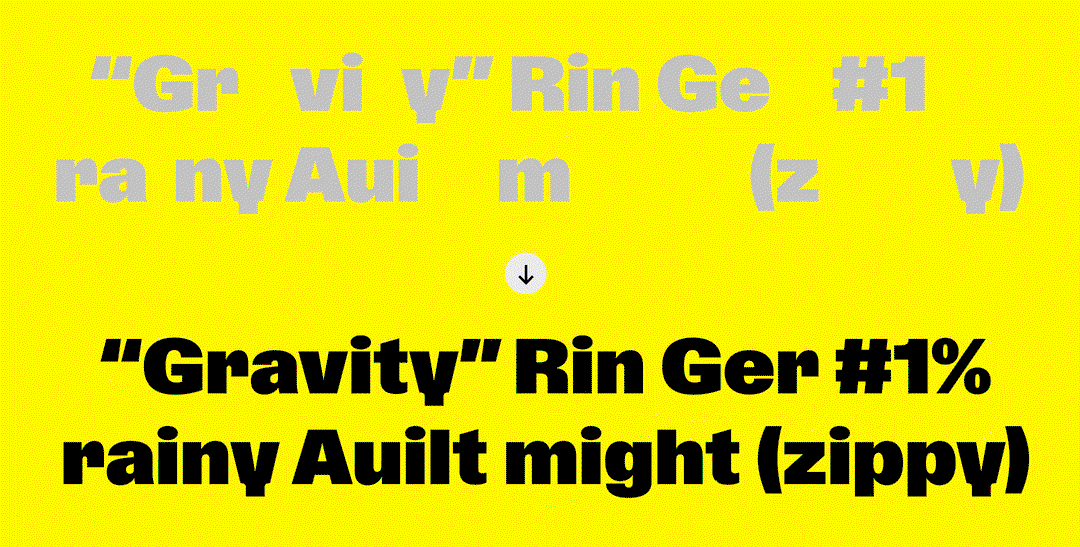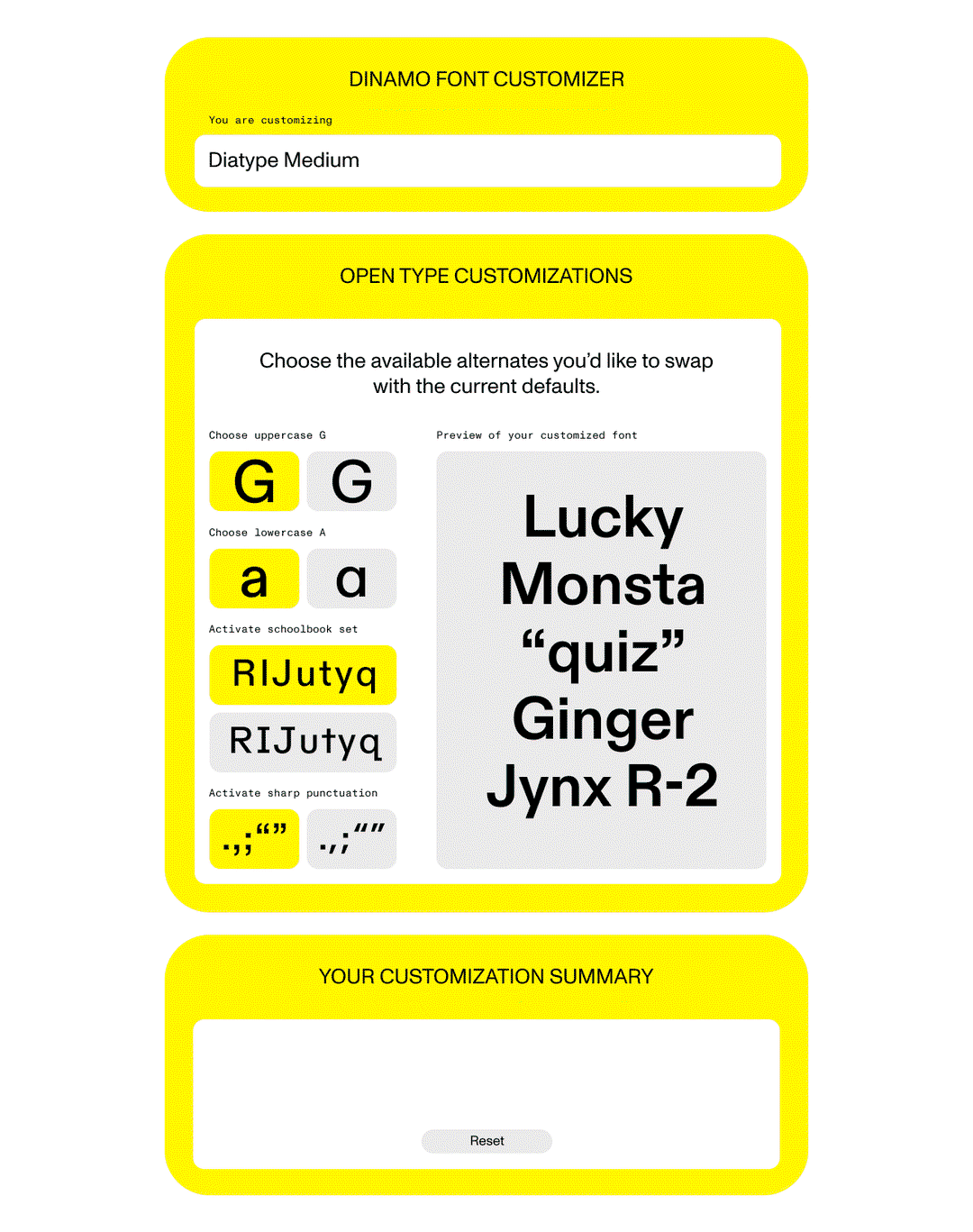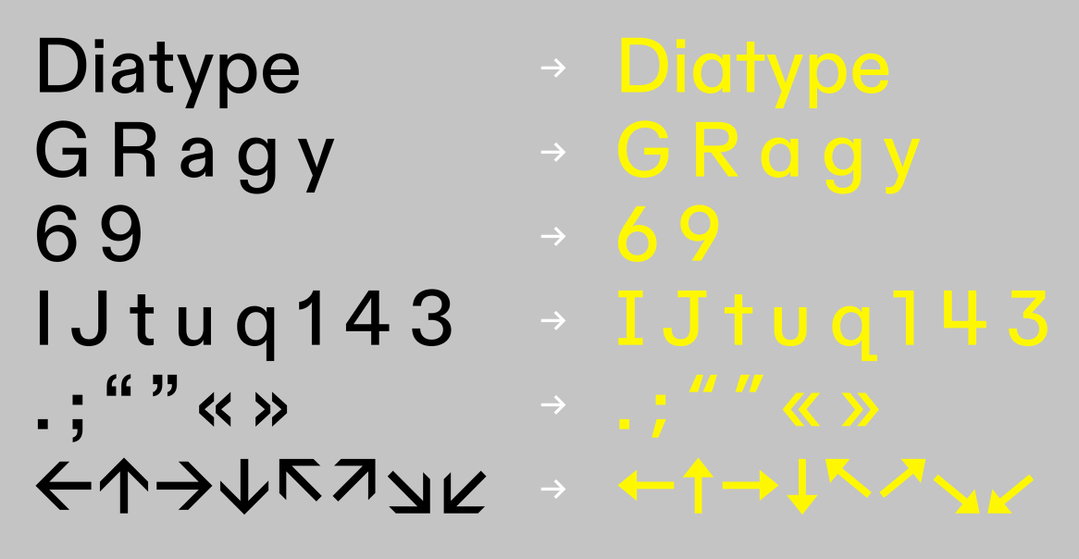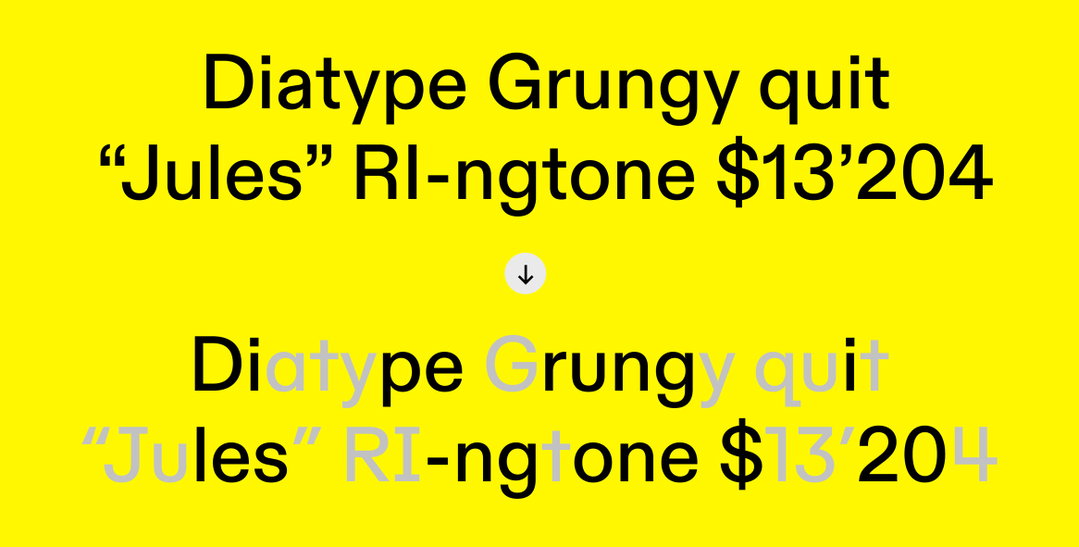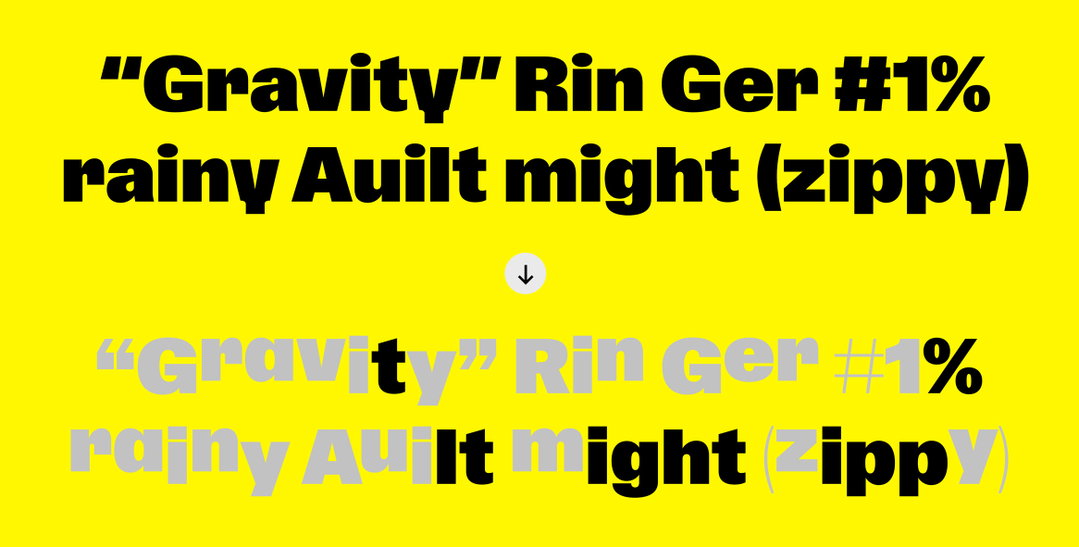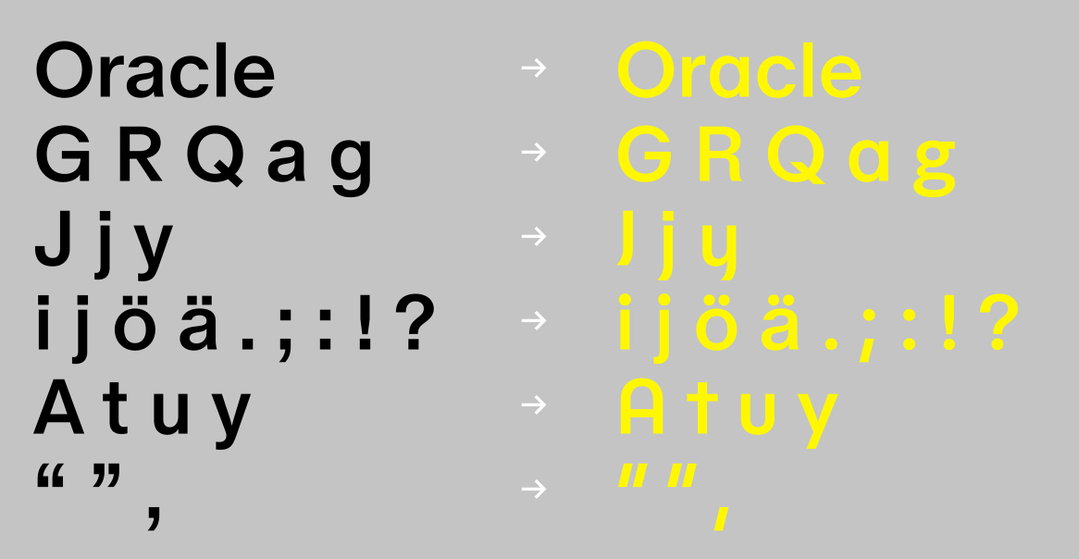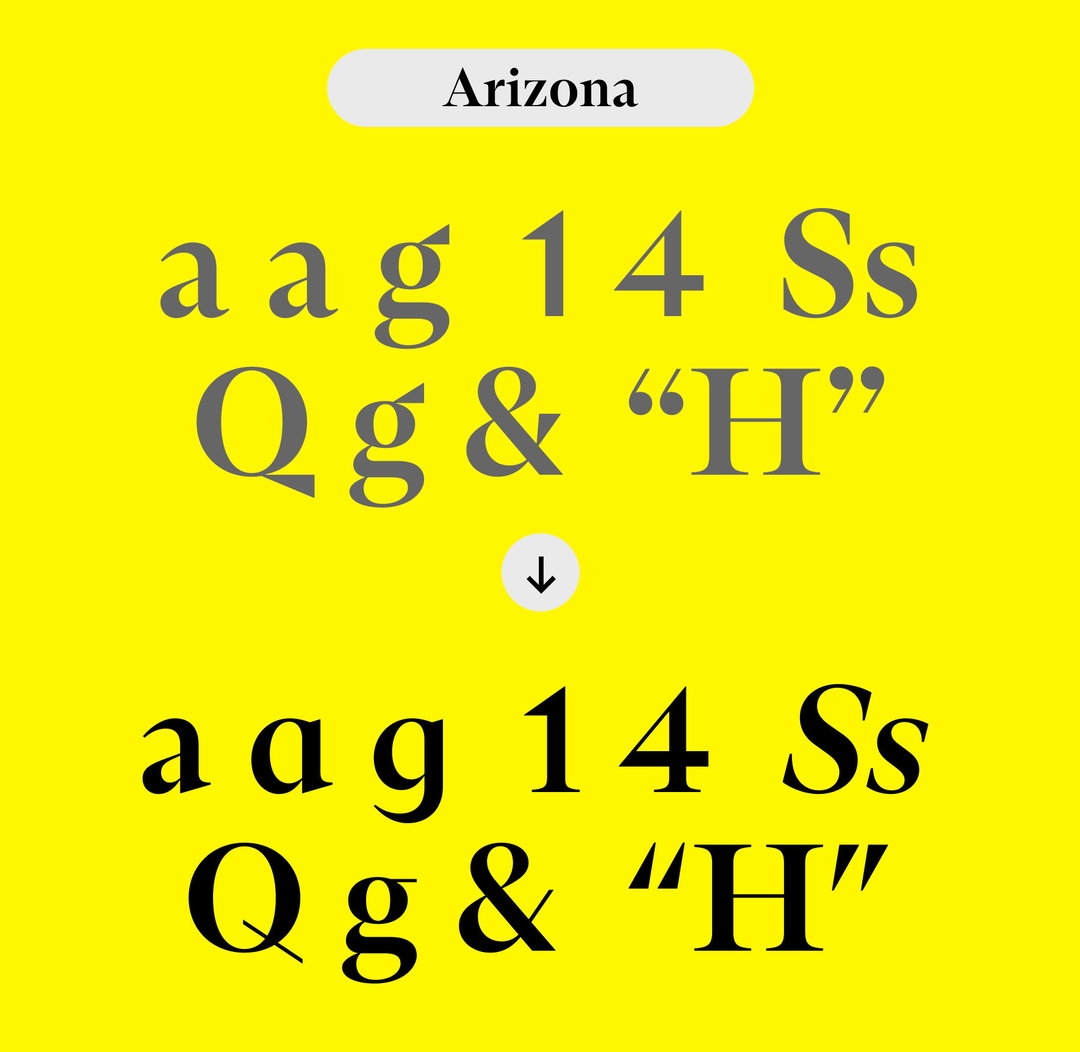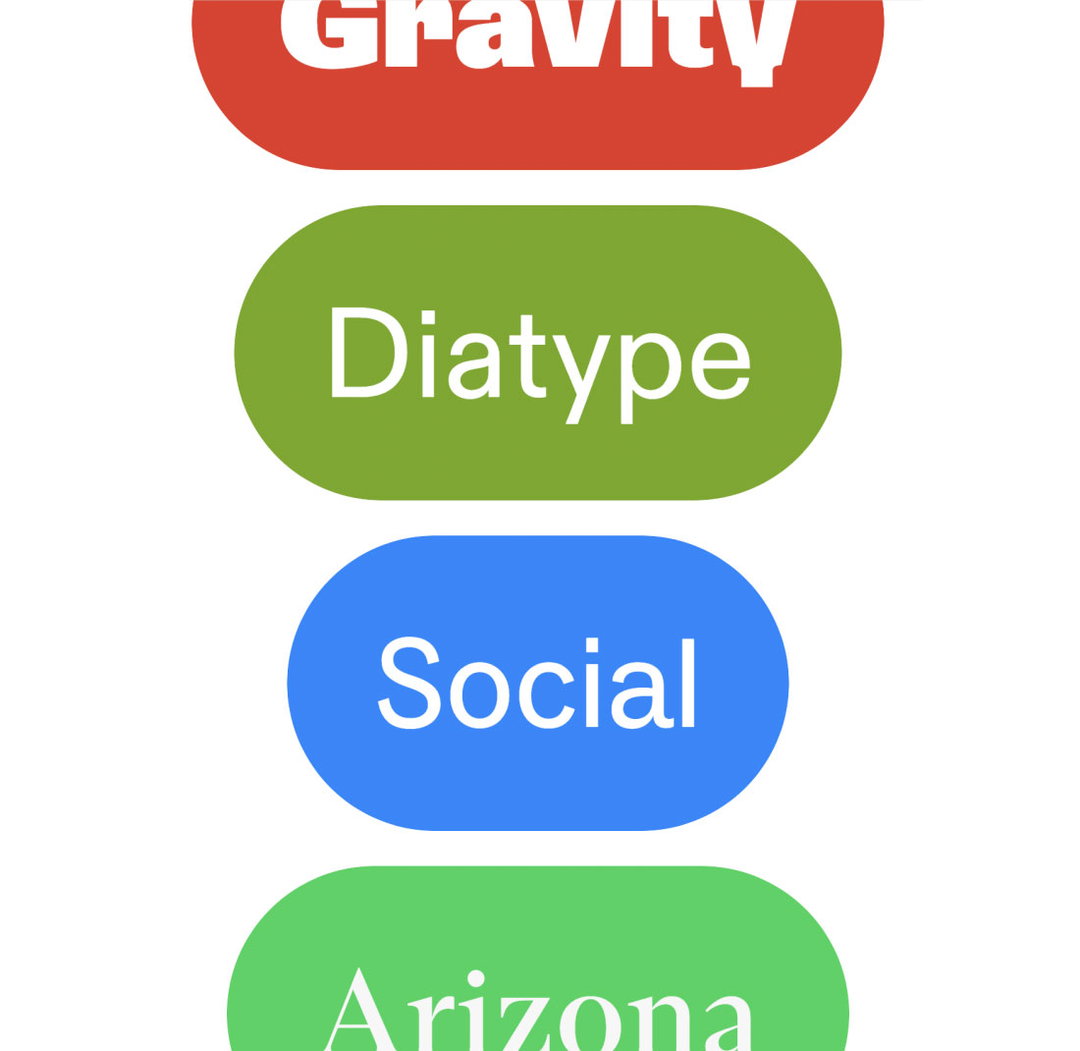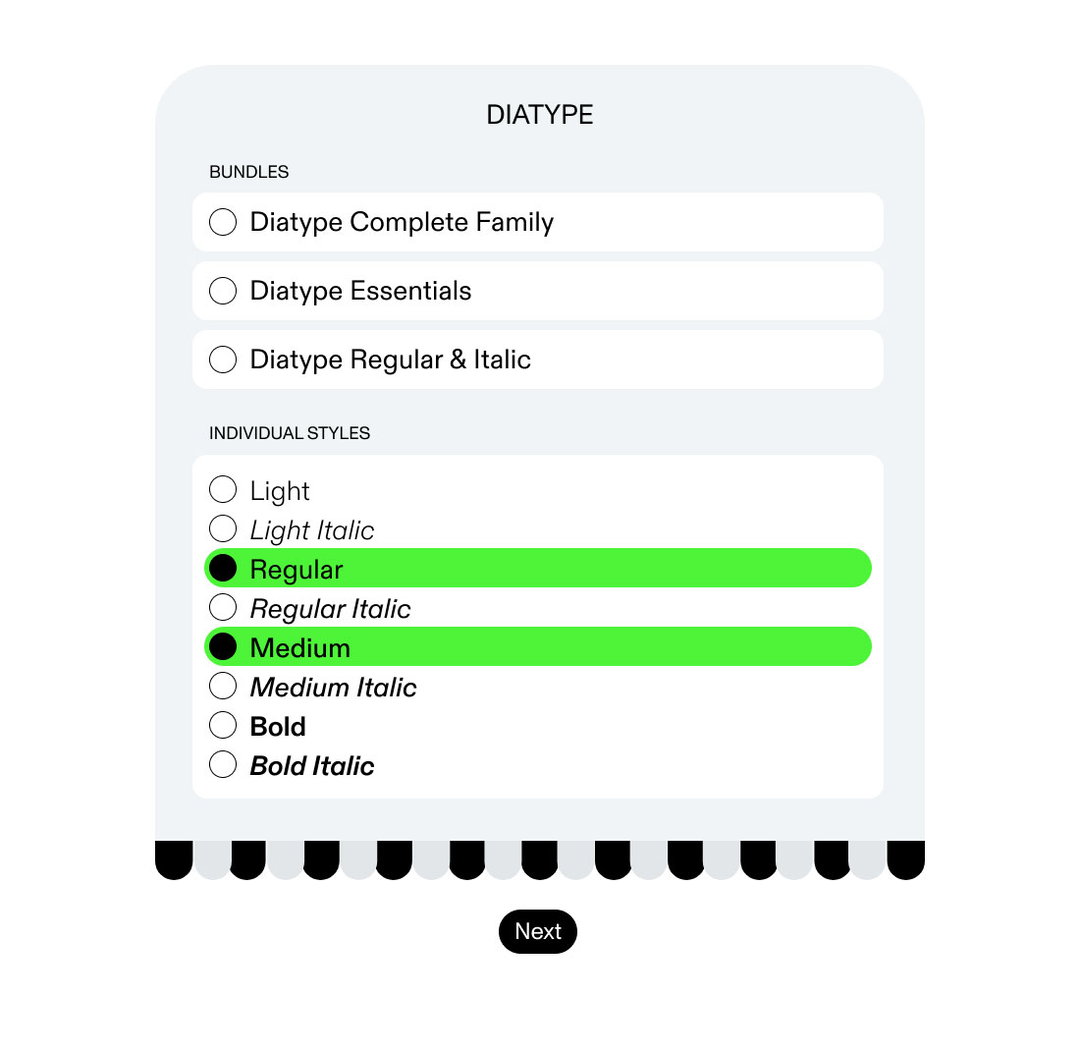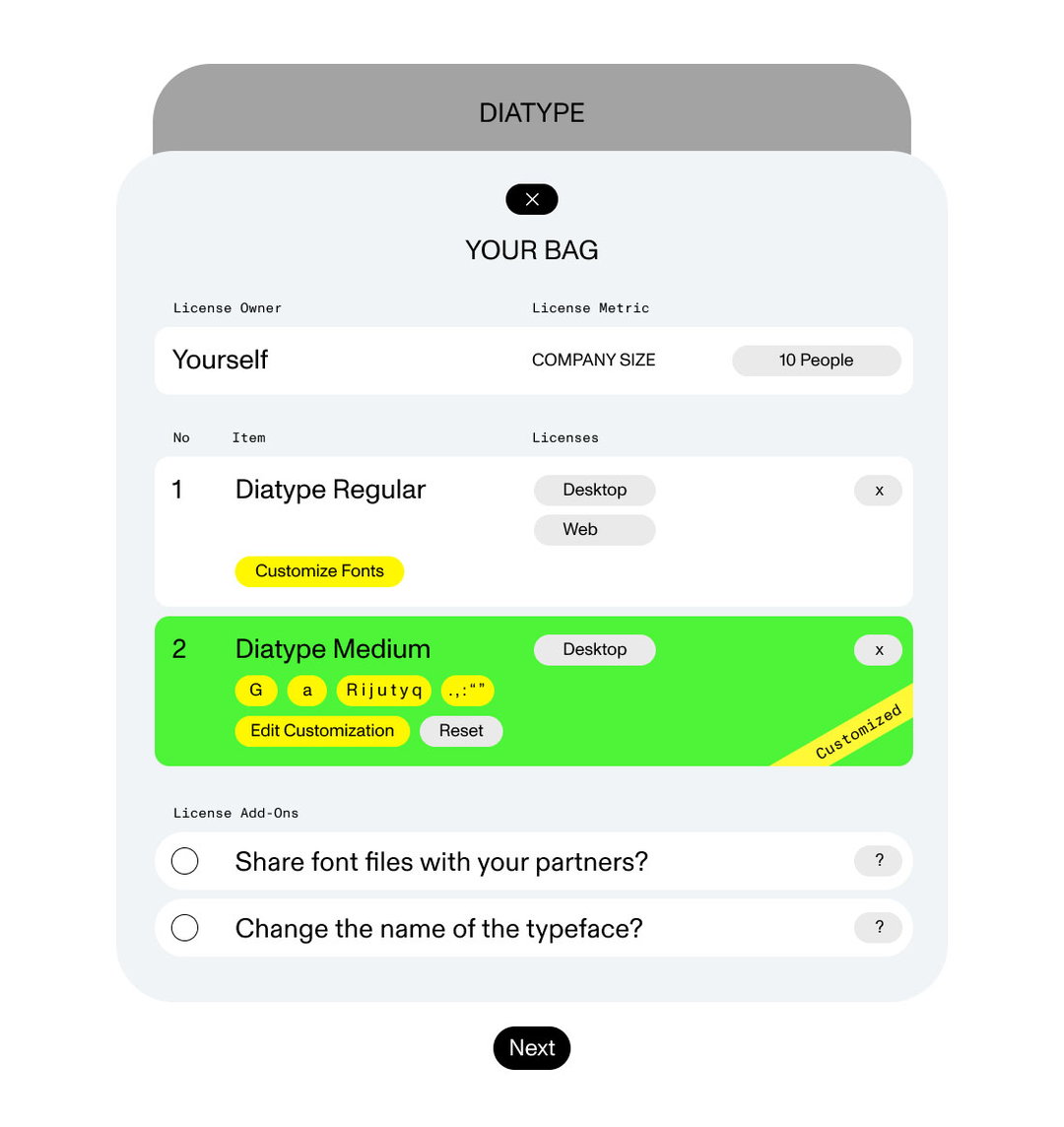
An animation of black and grey text on a bright yellow background. The text reads “Gravity” Rin Ger #1% rainy Auilt might (zippy), with the letters shifting slightly in weight and position.
“It’s a first”: this Dinamo tool lets designers and novices customise, rename and download its fonts for free
Using a tool resembling “an early 2000s Nokia mobile phone”, it is now easy for non-designers to punch in preferences and download their own personalised Dinamo font.
When a type foundry, specifically Swiss foundry Dinamo, releases a font, what audiences don’t see is all the slight variations on the letterforms that were discarded to create the final iteration. That is, until now. Dinamo has just launched a tool that not only lets users see these variations, but play with them to create a customised font in real time and download it at no extra cost. While for designers of course, this presents exciting opportunities – it means you no longer have to take time to contact a foundry, organise a customisation and front the bill – it also opens the doors for creativity a little wider for non-designers. Even someone with no design background can now in theory create their very own personalised font, rename it, and use it for their project, brand or site.
So what does the tool offer and why is it unique? “No other type foundry offers this service, both in terms of customising the font as you head to the checkout, or renaming it,” Dinamo’s Madeleine Morley explains to us. The Font Customizer is embedded into the Dinamo site. So once users have picked out a font, they can change the flavour and mood of the typeface, rename it with the naming tool and receive an instantly generated font. They can also log back in later to re-customise; for hardcore fans of the foundry, the tool even works for fonts bought years ago.
Perhaps one of the most interesting aspects of the release is how it signals a change in the way we look at font creation. As Dinamo co-founder Johannes Breyer puts it: “We’re no longer casting typefaces into hot metal — we can be way more expansive. At Dinamo, we have lots of people involved in designing a single typeface, which means we tend to have many differing ideas for differing characters in the room. In the past, most of these ideas got killed, and we’d publish only a small selection. The Dinamo Font Customizer gives us a great excuse to leave all alternate darlings inside a font so that our customers have more to choose from. For us, having this flexibility in mind feels like a modern way of working.”
A typographic specimen showing a font in black on the left and its yellow counterpart on the right. The text includes the words “Diatype” and “GRagy”, numbers, punctuation and a series of arrows.
While this premise of opening up the font creation process is exciting – as is the concept of offering custom typefaces to designers who can’t afford one – you might be wondering what level of customisation is possible. One thing to point out is that 80 per cent of Dinamo typefaces have alternate characters, a number the foundry states will grow with the invention of this tool. Co-founder Fabian Harb explains: “Many of our typefaces have different options for ampersands and numbers as well as school book sets. Often, there will be a closed looped ‘g’ or an open-loop ‘g,’ a single story ‘a’ or a double-story ‘a,’ maybe an ‘I’ and ‘J’ with or without serifs [..] sometimes we’ll have certain characters that are cut in a sharper way. It totally depends on the typeface [...] but ultimately it’s very interesting to see how much you can change the flavour of a typeface by swapping a selection of key characters.”
In the same way, renaming fonts may sound like a surface-level addition, but actually shakes up a large part of the designing process. “Instead of ABC Diatype (our name),” says Johannes, “they could call their typeface ‘PizzaSlize Diatype’. This makes it dead simple for clients to then distribute their custom font internally and make sure everybody in their company is using the right typeface. We call it the Yassification of font file management.” Curious readers can read more about the customiser tool, and try it for themselves, here.
An animation of the “Dinamo Font Customizer” interface on a bright yellow background. A user selects different glyphs and punctuation styles, which update the “Your Customization Summary” section and a live preview of the text.
A graphic on a bright yellow background shows two lines of bold black text. The top line reads “Gravity” Rin Ger #1% rainy Ault might (zippy), with a duplicate line below it in a lighter grey.
A typographic specimen showing a font transition on a grey background. Black characters on the left are paired with yellow versions on the right, separated by small arrows.
Black text on a bright yellow background reads “Diatype Grungy quit” and ““Jules” RI-ngtone $13’204”. A small white circle with a downward arrow sits between two versions of the text, the second of which is slightly offset and blurred.
A typography specimen on a bright yellow background shows a serif typeface called “Arizona”. The font is displayed in grey at the top and black at the bottom, featuring a mix of letters, numbers and symbols.
Four rounded rectangular buttons are stacked vertically on a white background. From top to bottom, the buttons are red, olive green, blue and bright green, reading “Gravity”, “Diatype”, “Social” and “Arizona”.
A user interface for the “Diatype” typeface shows a list of font bundles and individual styles. The “Regular” and “Medium” styles are selected, highlighted in bright green.
A 3D render of a digital shopping bag interface for the font brand Diatype. The screen shows two font weights, “Diatype Regular” and “Diatype Medium”, with the latter highlighted in bright green and marked as “Customized”.